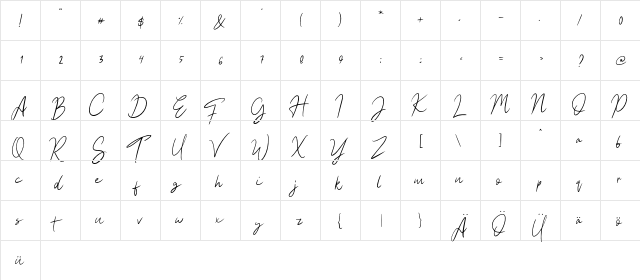
Hesgaki Regular
Design Context for Hesgaki Typeface
Hesgaki is a composed and adaptable typeface that performs quietly and consistently across a wide range of design contexts.